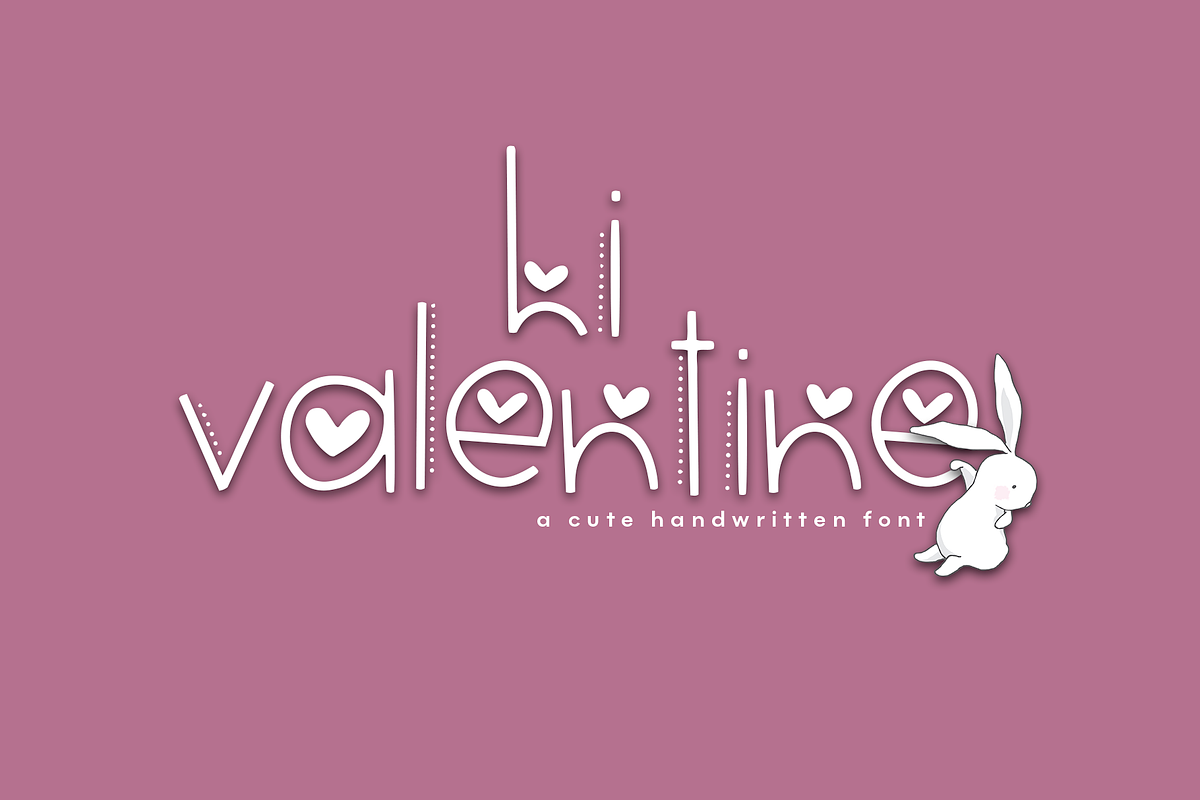
Hi Valentine - Valentine's Day Font Free Download
Hi Valentine - Valentine's Day Font Free Download is the perfect typeface to express love, warmth, and affection in your creative projects. Designed with a romantic and playful spirit, this font features charming curves and heart-inspired accents that make it ideal for Valentine’s Day cards, love letters, wedding invitations, and romantic social media posts.
Its handwritten style blends elegance and fun, making your text feel heartfelt and personal. Whether you're designing for a seasonal promotion or simply adding a romantic flair to your graphics, Hi Valentine delivers the right emotional tone. The font's readability and stylish form also make it suitable for both headline and body text in themed designs.